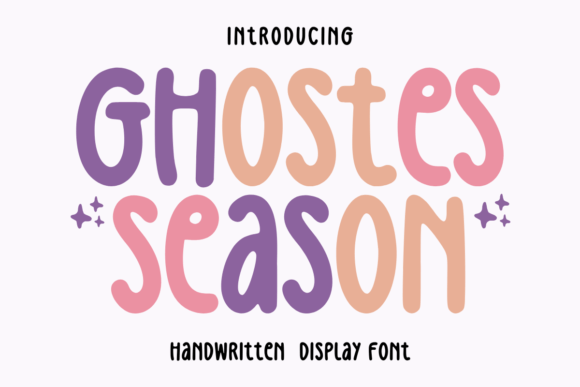
Introducing Ghostes Season Font: The Ultimate Display Font for Festive Flair
Are you looking for a font that can add a touch of magic to your creative projects? Look no further than Ghostes Season Font, a uniquely crafted display font that’s perfect for Halloween and other festive occasions. In this article, we’ll take a closer look at Ghostes Season, its features, and how it can elevate your DIY projects to the next level.
What is Ghostes Season Font?
Ghostes Season Font is a hand-created display font that’s designed to bring a sense of whimsical charm to any medium. Its festive aesthetics make it perfectly suited for Halloween-themed projects, but it’s also versatile enough to be used for a wide range of creative DIY projects. Whether you’re looking to create enchanting quotes, stylish t-shirts, bespoke tote bags, playful kids’ apparel, or trendy tumblers, Ghostes Season Font is the perfect choice.
The Features of Ghostes Season Font
So, what makes Ghostes Season Font so special? Here are just a few of its key features:
- Hand-crafted with love: Ghostes Season Font is a uniquely crafted font that’s been designed with attention to detail and a passion for creativity.
- Festive aesthetics: The font’s festive aesthetics make it perfect for Halloween and other seasonal celebrations.
- Whimsical charm: Ghostes Season Font has a playful, whimsical charm that’s sure to add a touch of magic to any project.
- Versatile: The font is versatile enough to be used for a wide range of creative DIY projects, from t-shirts and tote bags to kids’ apparel and tumblers.
How to Use Ghostes Season Font
Ghostes Season Font is easy to use and can be incorporated into a wide range of creative projects. Here are just a few ideas to get you started:
- Enchanting quotes: Use Ghostes Season Font to create eye-catching quotes that are perfect for social media, t-shirts, or posters.
- Stylish t-shirts: Add a touch of festive flair to your t-shirts with Ghostes Season Font.
- Bespoke tote bags: Create unique and stylish tote bags with Ghostes Season Font.
- Playful kids’ apparel: Use Ghostes Season Font to create fun and playful kids’ apparel that’s perfect for Halloween or other seasonal celebrations.
- Trendy tumblers: Add a touch of magic to your tumblers with Ghostes Season Font.
The Benefits of Using Ghostes Season Font
So, why should you choose Ghostes Season Font for your creative projects? Here are just a few benefits:
- Adds a touch of magic: Ghostes Season Font adds a touch of magic to any project, making it perfect for festive occasions.
- Elevates the ordinary: The font elevates the ordinary to extraordinary, making it perfect for creative DIY projects.
- Easy to use: Ghostes Season Font is easy to use and can be incorporated into a wide range of creative projects.
- Versatile: The font is versatile enough to be used for a wide range of creative DIY projects.
Tips for Getting the Most Out of Ghostes Season Font
Here are a few tips for getting the most out of Ghostes Season Font:
- Experiment with different colors: Experiment with different colors to find the perfect combination for your project.
- Play with font sizes: Play with font sizes to create visual interest and add emphasis to certain words or phrases.
- Use it with other fonts: Use Ghostes Season Font with other fonts to create a unique and eye-catching combination.
- Be creative: Don’t be afraid to think outside the box and come up with creative and unique ideas for your project.
Ghostes Season Font is a uniquely crafted display font that’s perfect for adding a touch of magic to your creative projects. With its festive aesthetics, whimsical charm, and versatility, it’s the perfect choice for Halloween and other seasonal celebrations. Whether you’re looking to create enchanting quotes, stylish t-shirts, bespoke tote bags, playful kids’ apparel, or trendy tumblers, Ghostes Season Font is the perfect choice. So why wait? Download Ghostes Season Font today and start adding a dash of eccentric magic to your inspirations!